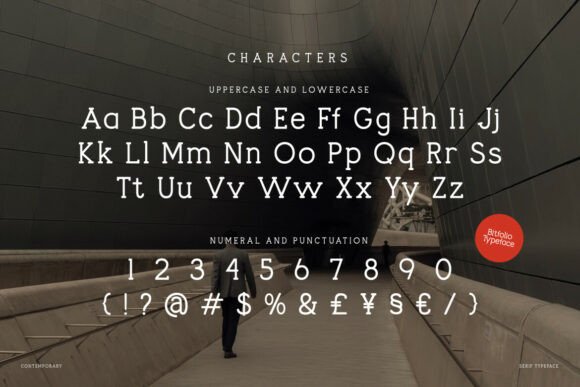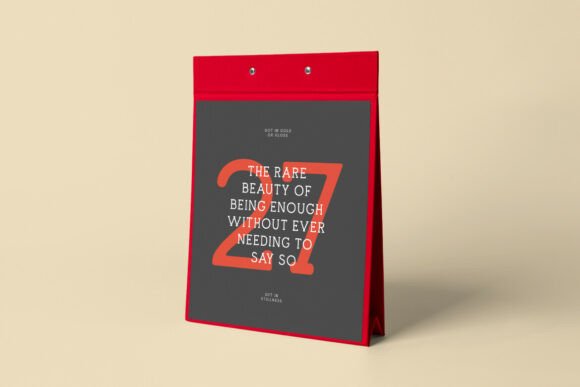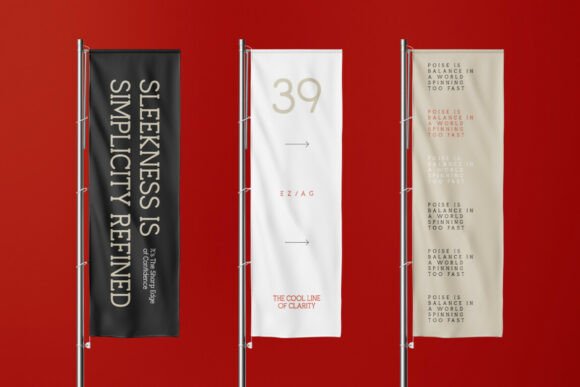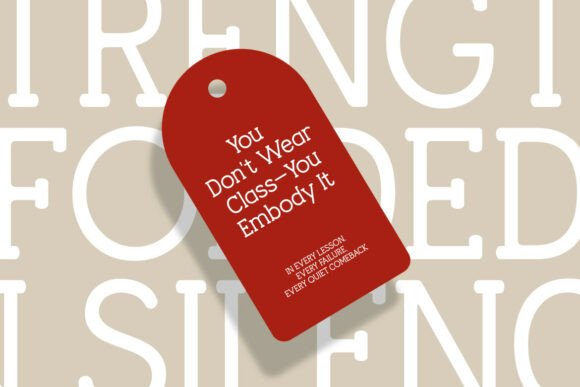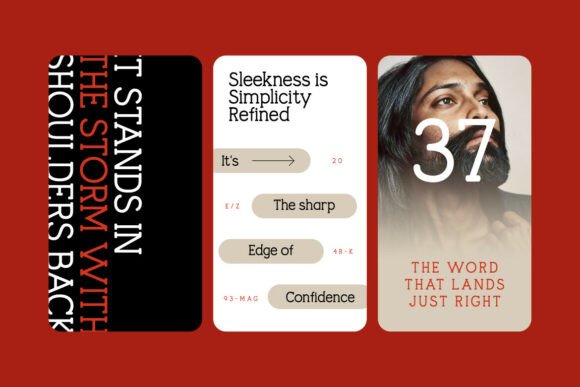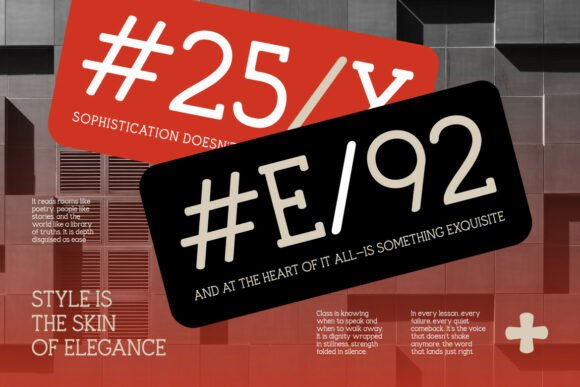
Introducing Bitfolio Font: The Epitome of Modern Serif Typography
In the realm of typography, the right font can elevate a design from ordinary to extraordinary. For those seeking a blend of contemporary flair and classic sophistication, Bitfolio Font emerges as a premier choice. This article delves into the characteristics, applications, and benefits of Bitfolio, a typeface that is redefining the standards of serif typography.
Design Philosophy of Bitfolio
Bitfolio is a contemporary serif typeface meticulously designed to marry ultimate clarity with professional sophistication. Its creation was inspired by the need for a font that embodies both friendliness and authority, making it versatile for a wide range of design applications. The typeface boasts thick, rounded serifs and a balanced x-height, which collectively contribute to its distinctive aesthetic.
The Aesthetic Appeal of Bitfolio
Bitfolio’s design draws inspiration from classic slab-serifs but infuses them with a modern twist. This blend results in a font that feels both nostalgic and cutting-edge. The thick, rounded serifs add a layer of warmth and approachability, while the balanced x-height ensures readability and elegance. This combination makes Bitfolio an excellent choice for designs that require a touch of sophistication and a dash of modernity.
Applications of Bitfolio Font
Bitfolio’s versatility is one of its most compelling attributes. Its unique blend of classic and modern elements makes it suitable for a variety of design projects. Some of the key applications where Bitfolio shines include:
- Creative Agency Branding: For creative agencies looking to establish a strong brand identity, Bitfolio offers a professional yet approachable feel that can set them apart.
- Professional Portfolio Titles: The font’s clarity and sophistication make it ideal for portfolio titles, helping professionals to present their work with elegance and impact.
- High-End Tech Startup Identities: Tech startups aiming for a sophisticated and modern brand image will find Bitfolio to be an excellent choice, as it conveys innovation and reliability.
- Cinematic “Urban-Lifestyle” Social Media Headers: For social media content creators focusing on urban lifestyle and cinematic content, Bitfolio provides a stylish and engaging aesthetic that captures attention.
Why Choose Bitfolio?
Choosing a font for a design project can be overwhelming, given the numerous options available. However, Bitfolio stands out for several reasons:
- Legibility: Its balanced design ensures high legibility, making it suitable for both digital and print media.
- Versatility: Bitfolio can be used across various design projects, from branding to advertising, without losing its impact.
- Uniqueness: The font’s modern twist on classic serif design elements makes it unique and memorable.
Bitfolio Font is a remarkable addition to the world of typography, offering a perfect blend of modernity and classic sophistication. Its design philosophy, aesthetic appeal, and versatility make it an invaluable asset for designers and crafters looking to elevate their projects. Whether it’s for creative agency branding, professional portfolios, tech startups, or social media headers, Bitfolio is poised to make a lasting impression. Embrace the power of Bitfolio and discover a new dimension of typographic excellence.
Bitfolio Font is not just a typeface; it’s a design statement. With its architectural soul and contemporary flair, it’s set to become a favorite among designers and crafters seeking to make an impact. Explore the possibilities with Bitfolio and let its unique aesthetic elevate your designs to new heights.